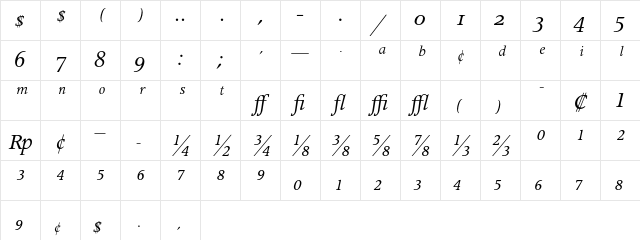
Apollo MT Italic Expert
Style: Italic Expert
Complete Apollo MT Italic Expert glyph index. Displaying only characters natively supported by Apollo MT Italic Expert font.
Design Context for Apollo MT
Apollo MT is a composed and adaptable typeface that performs quietly and consistently across a wide range of design contexts. The slanted form adds forward momentum and visual energy.